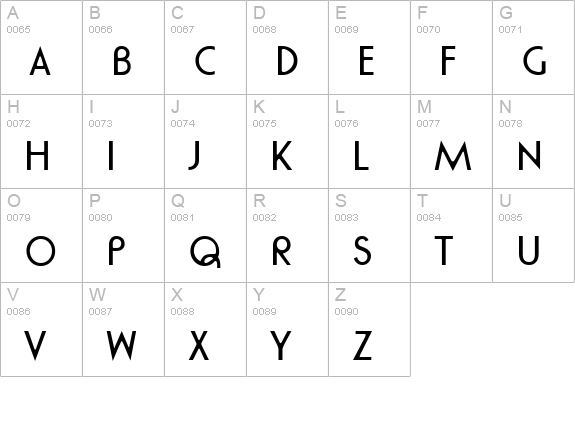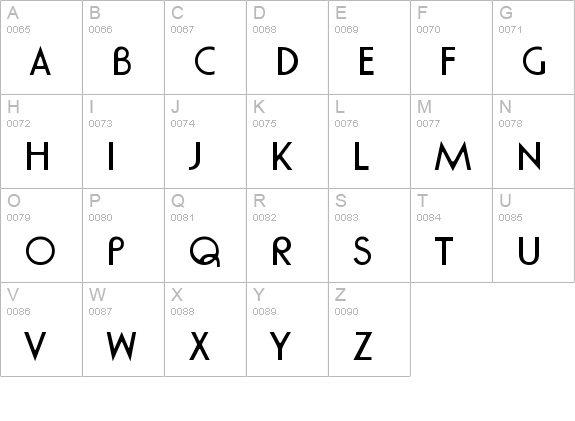
Blippo Light SF Font Details
Blippo Light SF is a refined, elegant variant in the Blippo typeface family \xE2\x80\x94 well suited to elegant body text, refined sub-headings, and luxury branding.
Blippo Light SF font is a quirky and playful typeface that exudes a sense of fun and energy. Its rounded edges and bold design make it perfect for a variety of creative projects, from posters to invitations to branding materials. With its clean lines and modern look, Blippo Light SF font adds a touch of whimsy to any design. The best part? Blippo Light SF font is available for free download at FontsMarket.com. This means you can easily access this unique and eye-catching font to enhance your projects without having to spend a dime. Whether you're a designer looking to add a pop of personality to your work or a DIY enthusiast creating custom designs, Blippo Light SF font is a great choice for adding a touch of playfulness to your creations. Download it today and let your creativity shine!